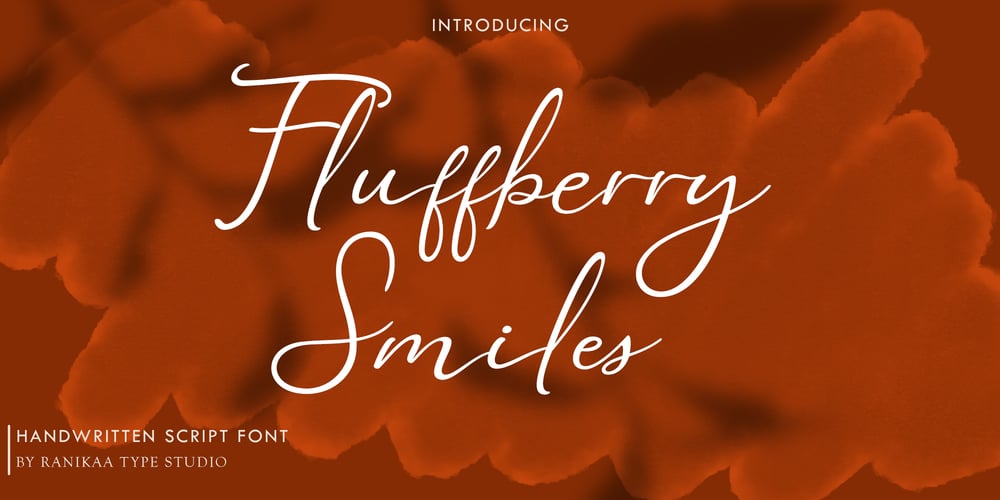
Fluffyberry Smiles Font Family was designed by Rani Septia and published by Ranikaa Type Studio. Fluffyberry Smiles contains 1 styles and family package options. Fluffyberry Smiles is a whimsical and playful typeface bursting with charm and personality. Its soft, rounded letterforms and bouncy baseline create an inviting, cheerful aesthetic perfect for children’s books, greeting cards, branding, and any project that calls for a touch of warmth and fun. The font features gentle curves, friendly proportions, and a hand-drawn feel, making it ideal for evoking a sense of joy and lightheartedness. Whether used for headlines, packaging, or social media graphics, Fluffyberry Smiles brings a delightful, storybook-like magic to any design.